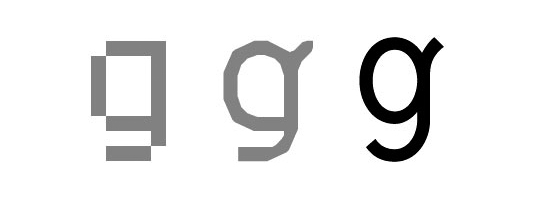
Greatest fonts countdown: 91 - Triplex
91. Triplex
- Zuzana Licko, 1989
Triplex was Zuzana Licko's (co-founder of Emigre) first sans-serif typeface. It's based on geometric forms and bears some similarities to her slightly earlier design, Citizen. At the time of its release in 1989, Triplex was among the first nine typefaces of the digital era. This claim was highlighted by its stark geometry. After its release, the typeface was steadily expanded, with John Downer contributing a whimsical italic and Licko herself adding OpenType versions of the fonts in 2006.